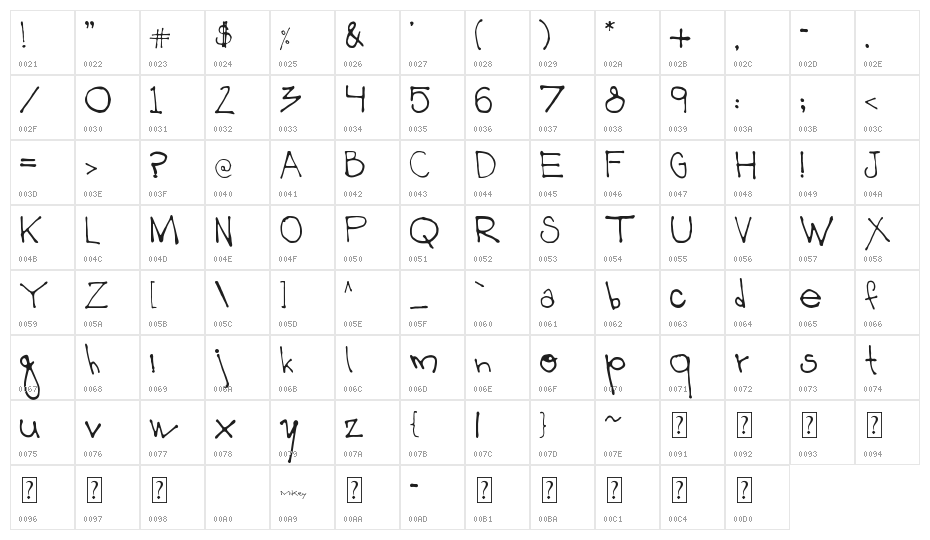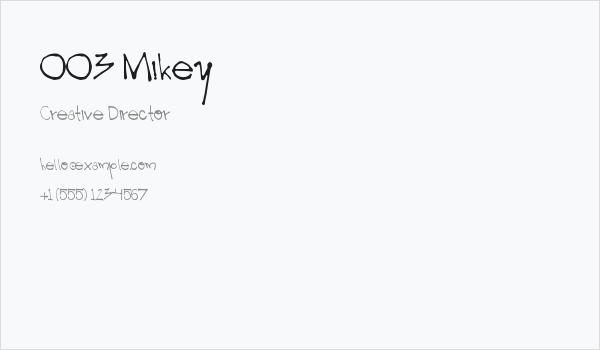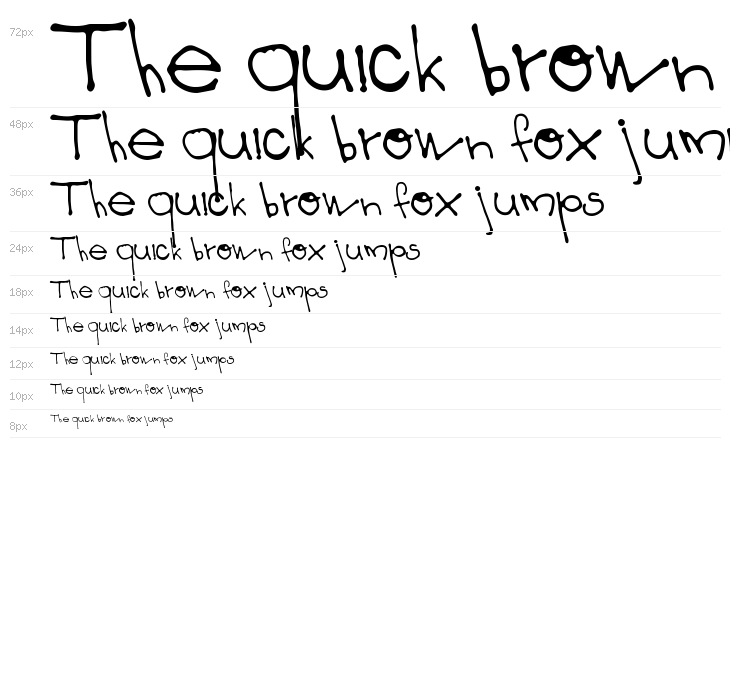
003 Mikey Font
003 Mikey Description
This font exudes a playful and informal vibe with its hand-drawn, irregular strokes. The characters are unevenly sized and spaced, giving it a whimsical and casual appearance. The uppercase letters are tall and slightly narrow, while the lowercase letters have a more varied height, adding to the quirky charm. Numbers and special characters maintain the same playful style, making it suitable for creative and fun projects. The overall look is reminiscent of doodles or handwriting, perfect for designs that require a personal touch.
| Proposed Projects | Ideal for children's books, casual invitations, greeting cards, and playful branding. |